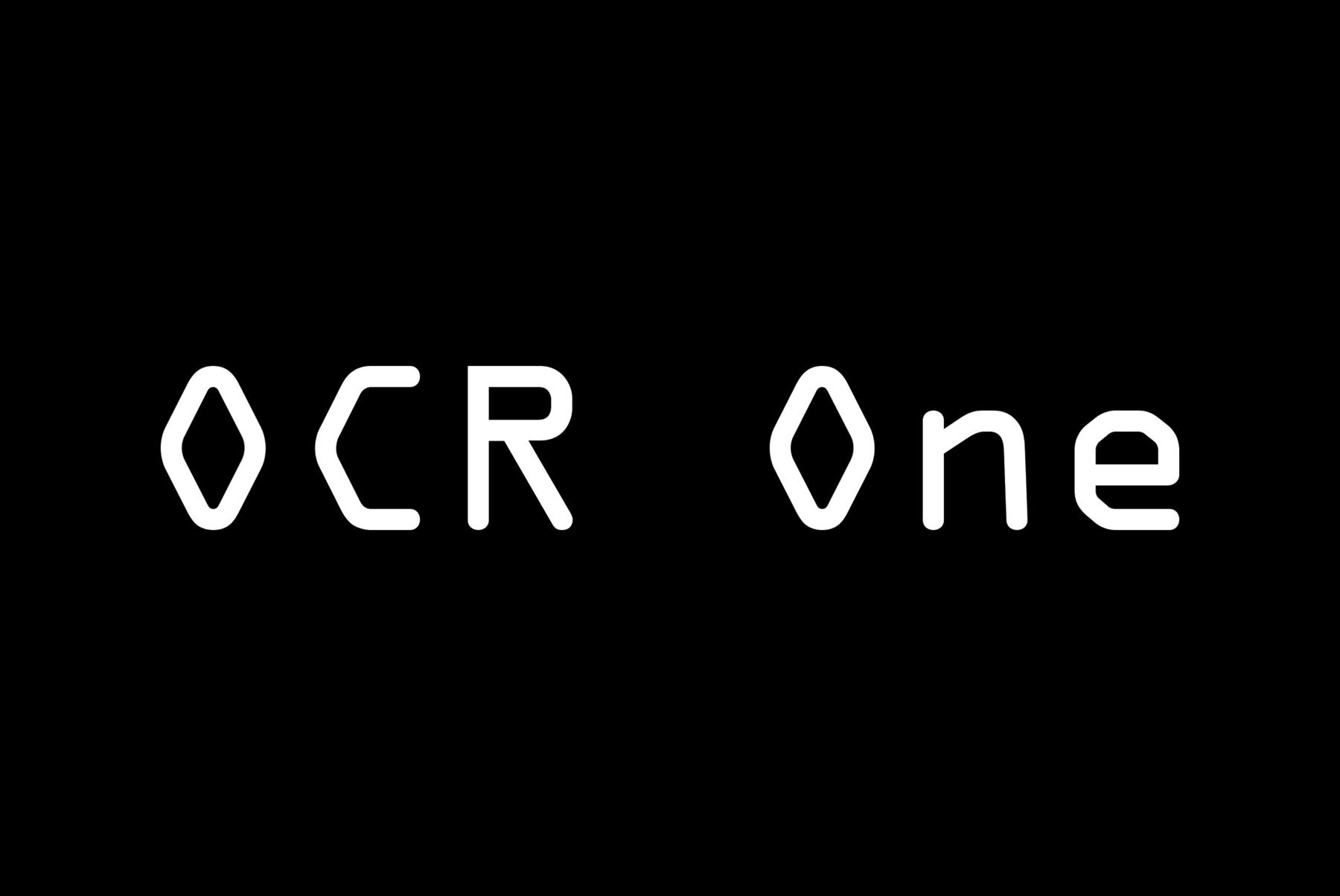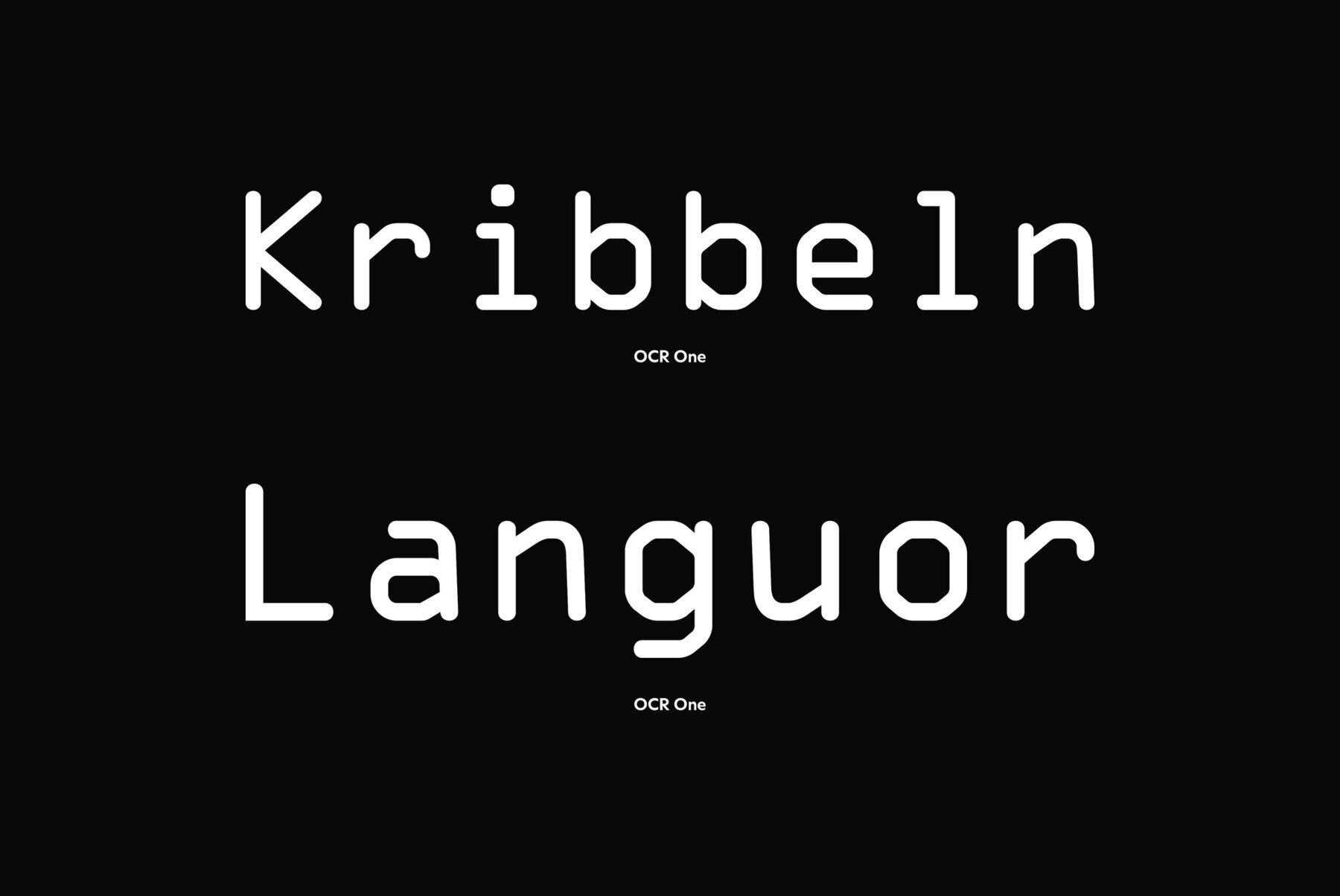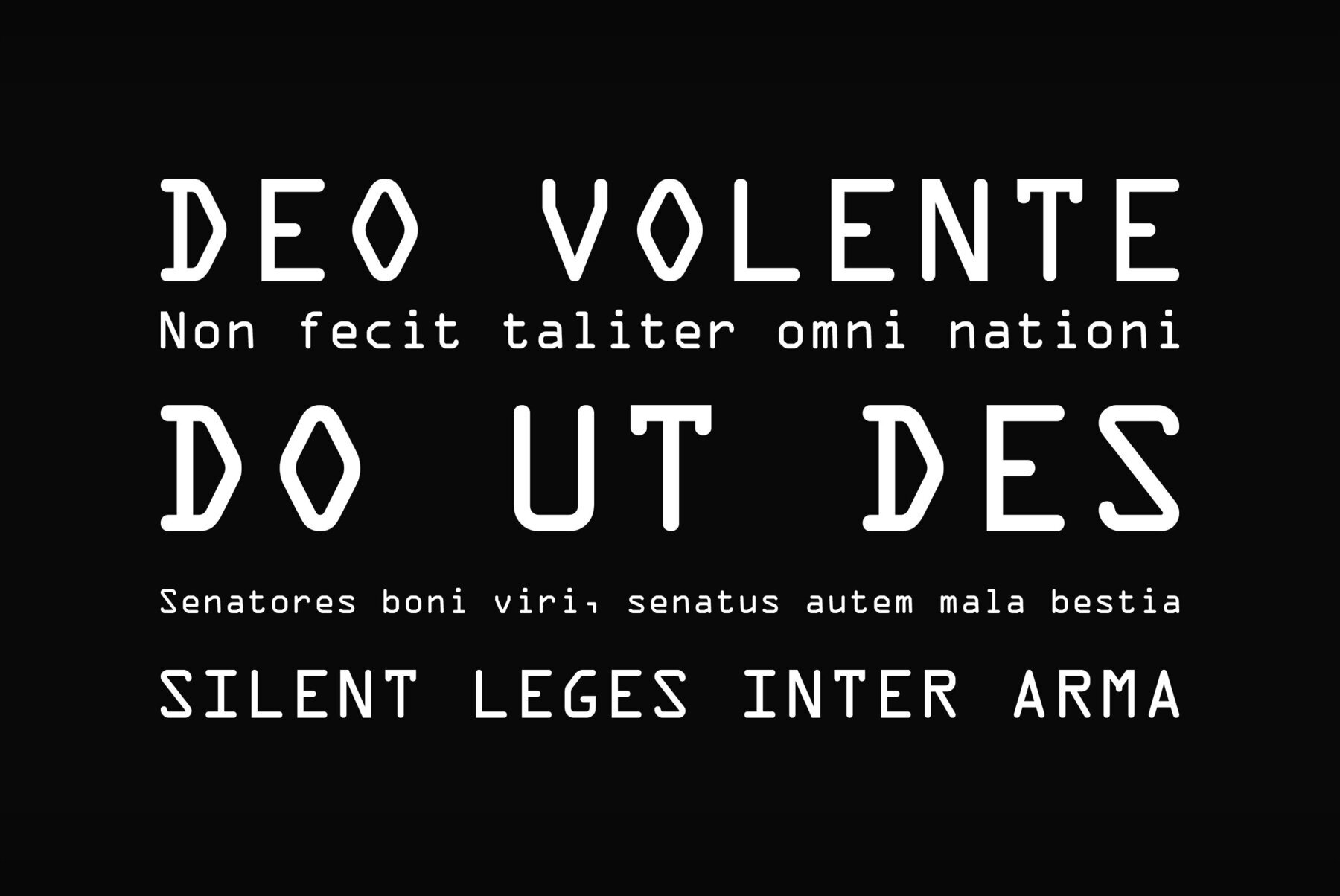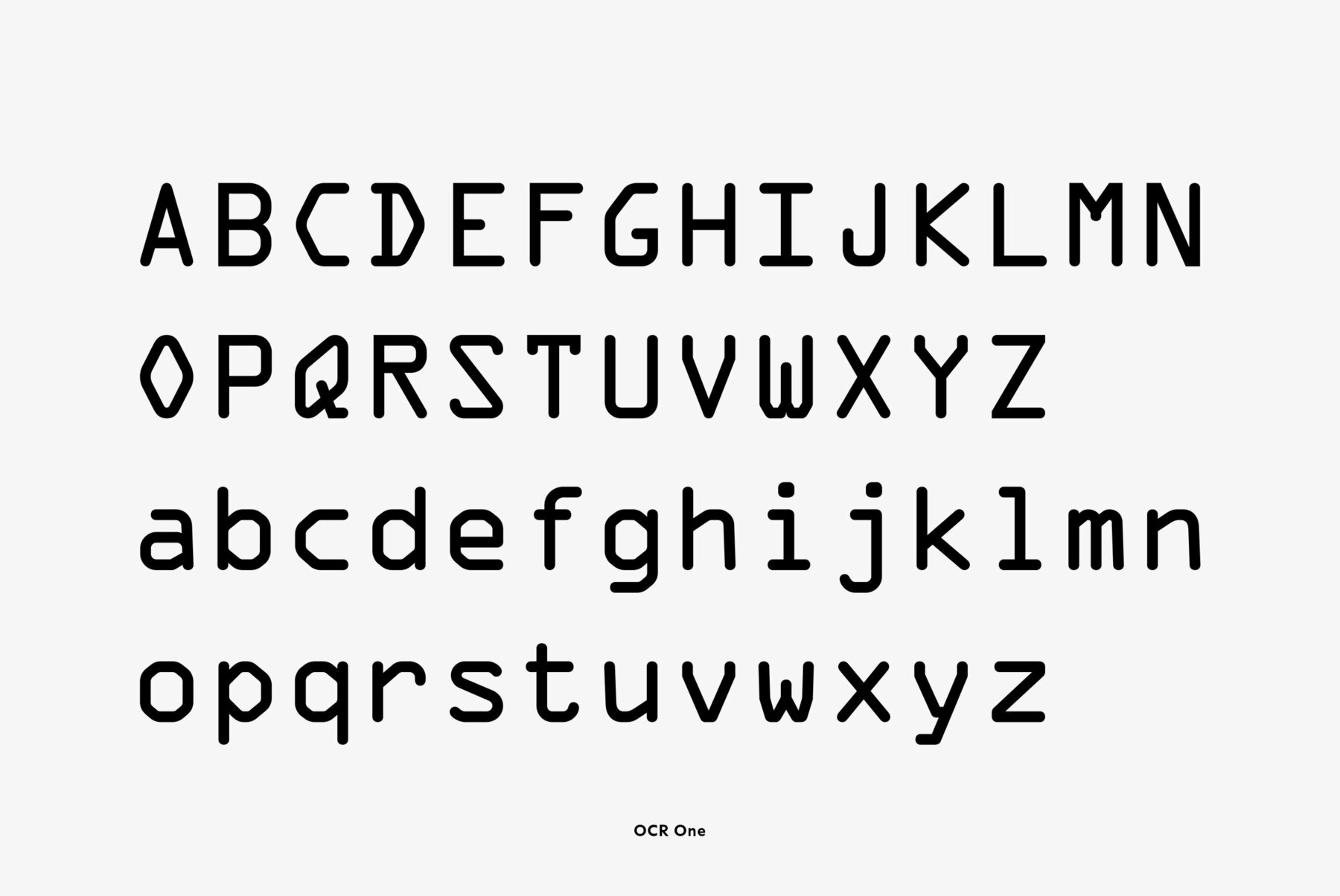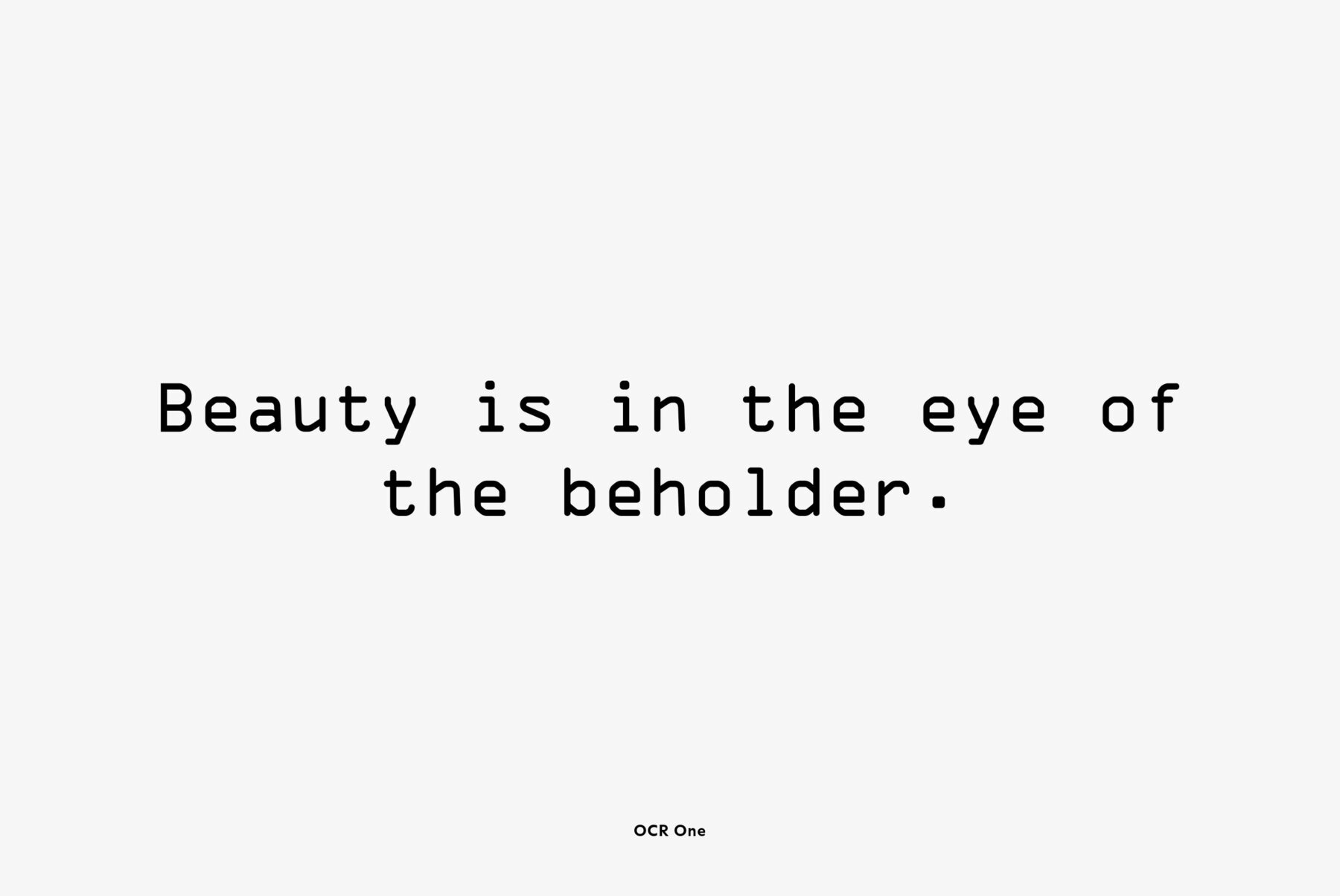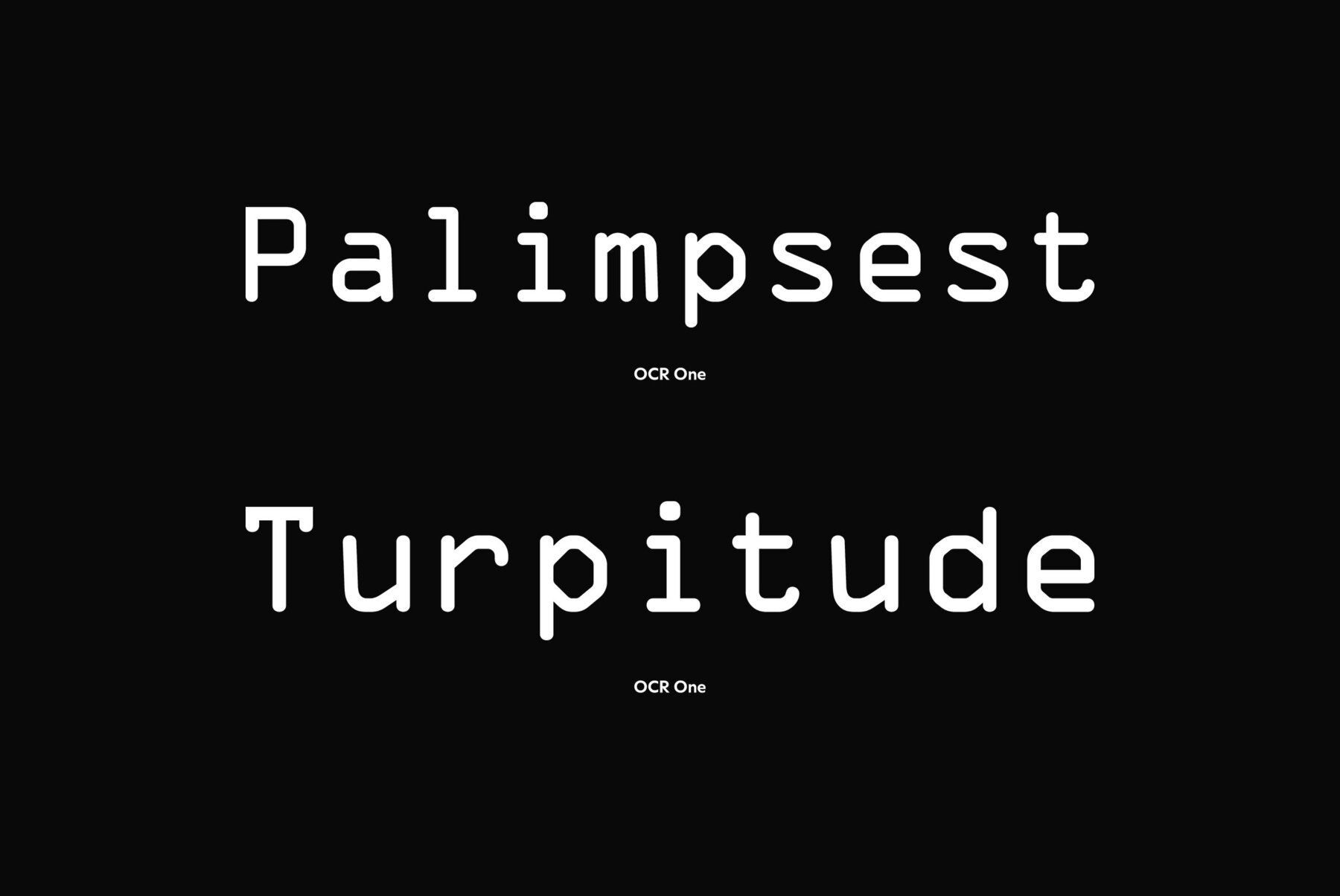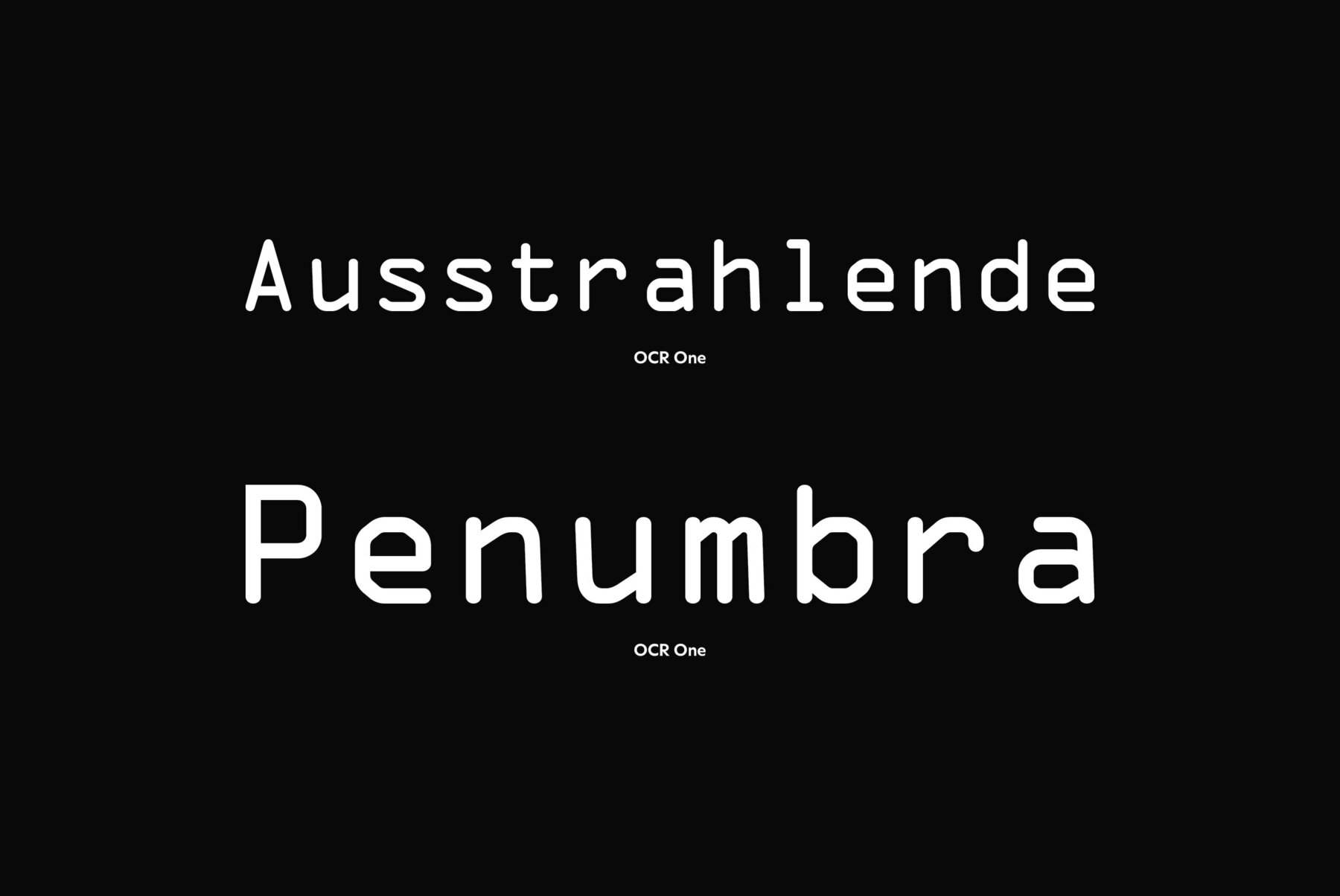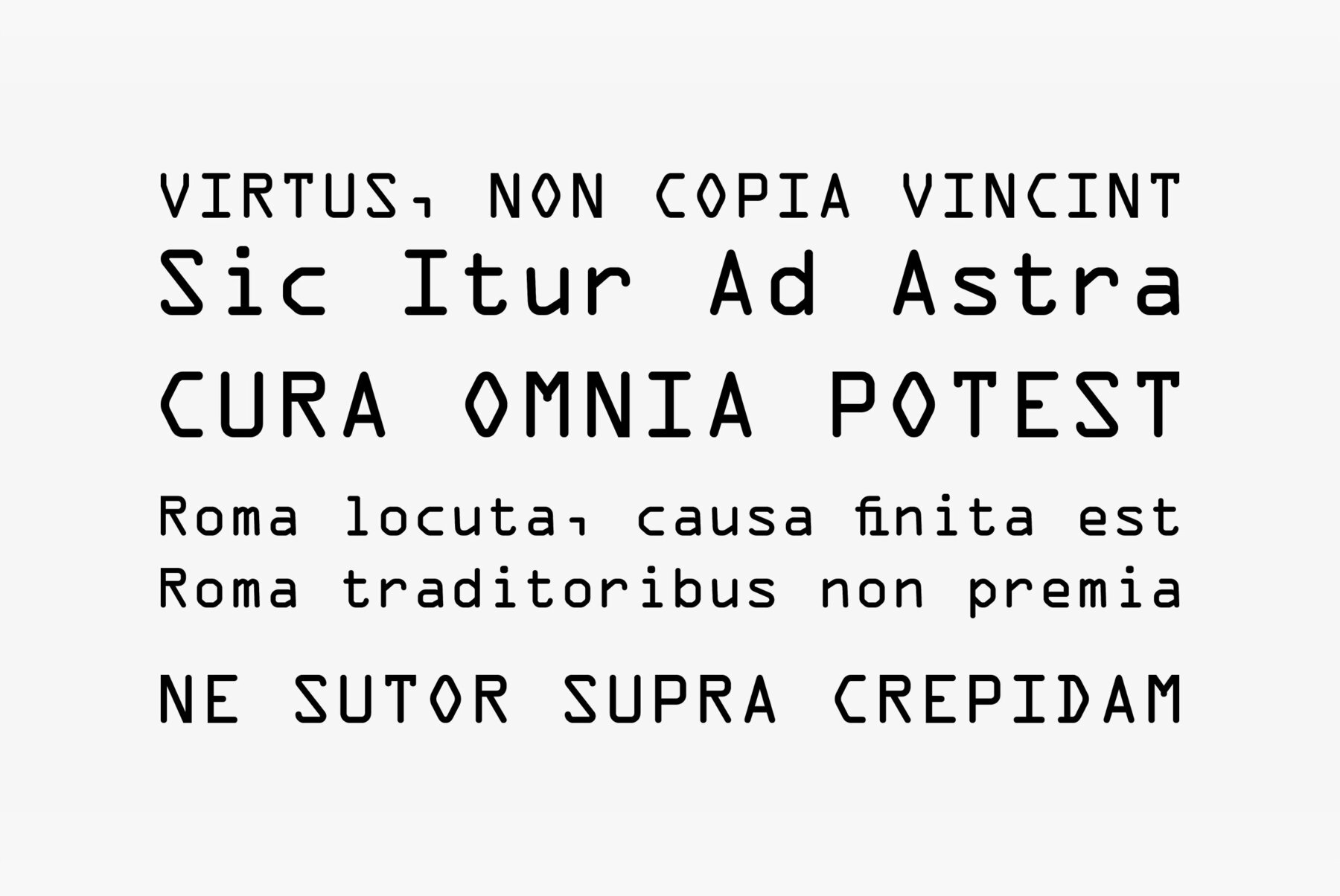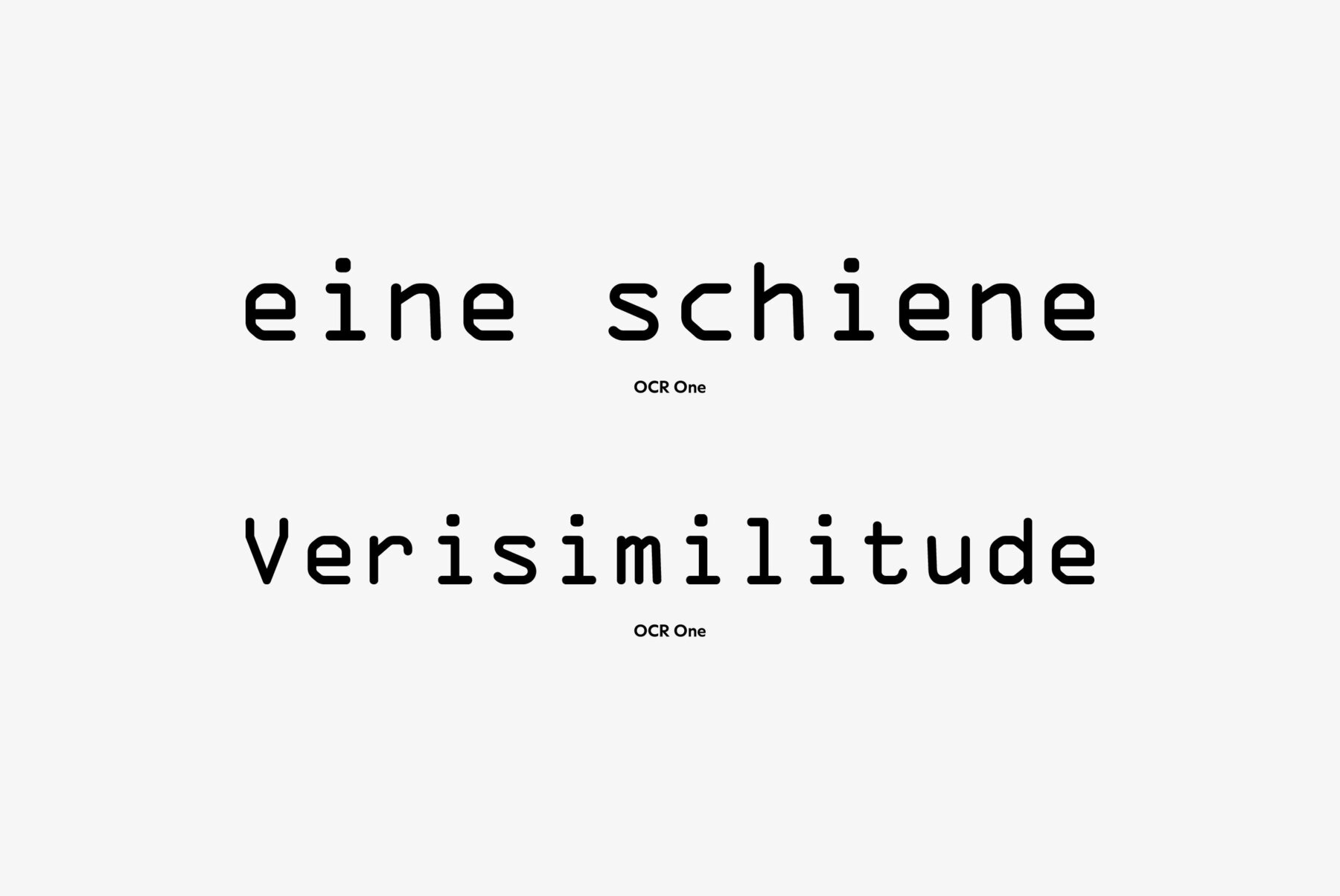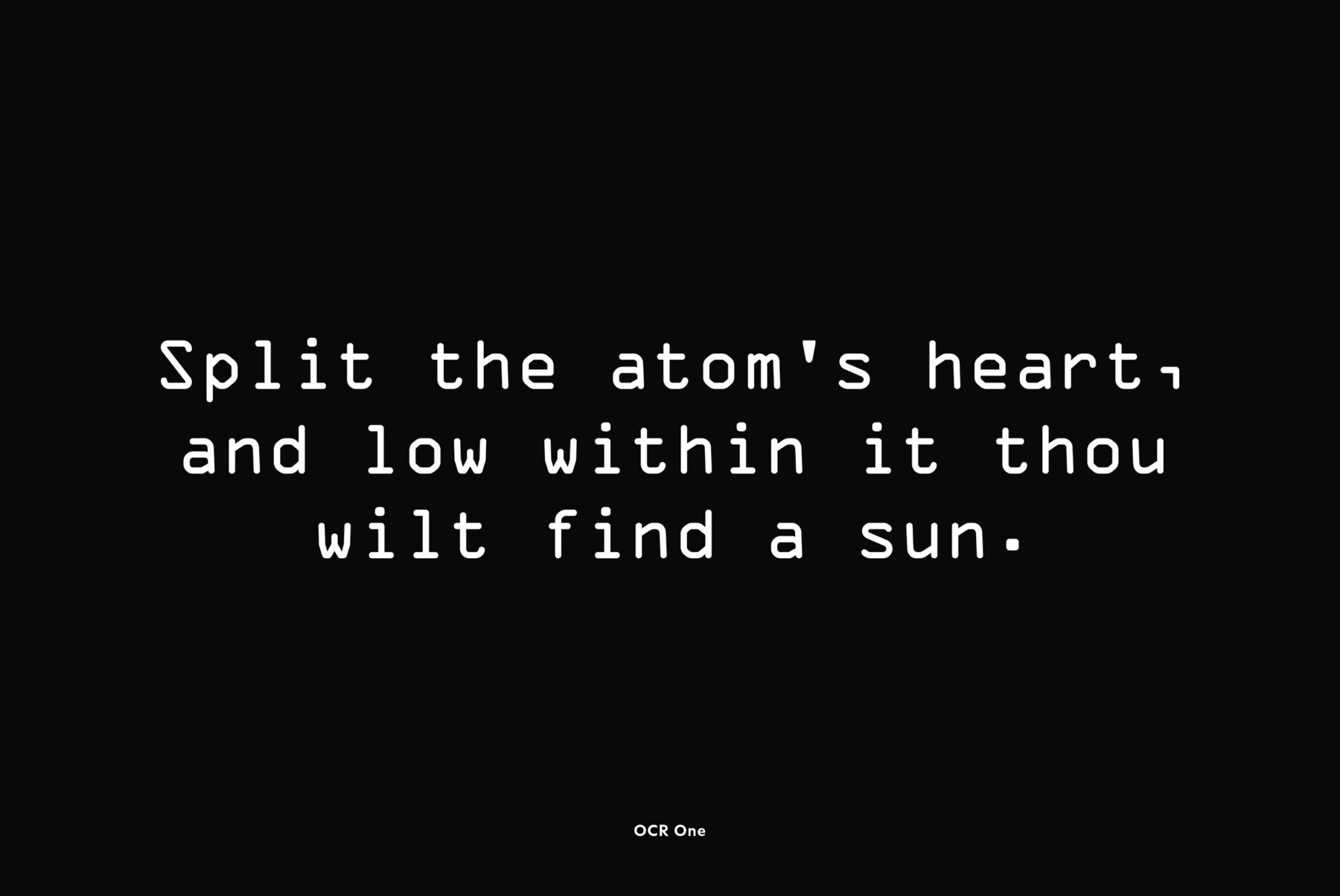
Designed at ParaType (ParaGraph) in 1997 by Tagir Safayev. Based on OCR-A typeface (1968) of American Type Founders. A simple sans serif typeface designed to meet the requirements of the US Bureau of Standards for optical character recognition.